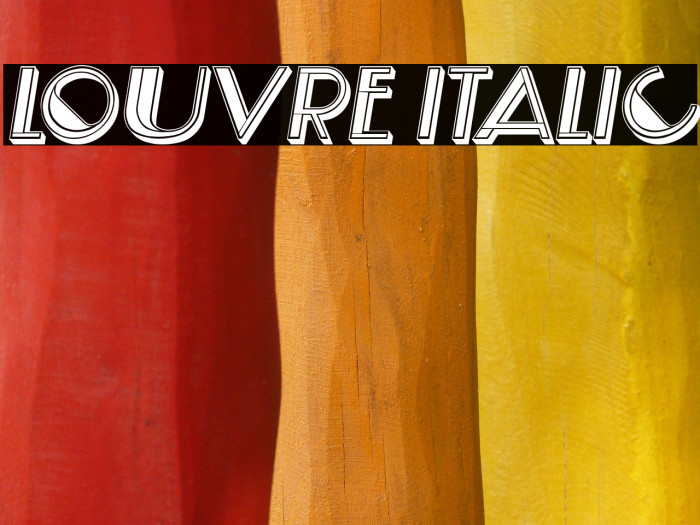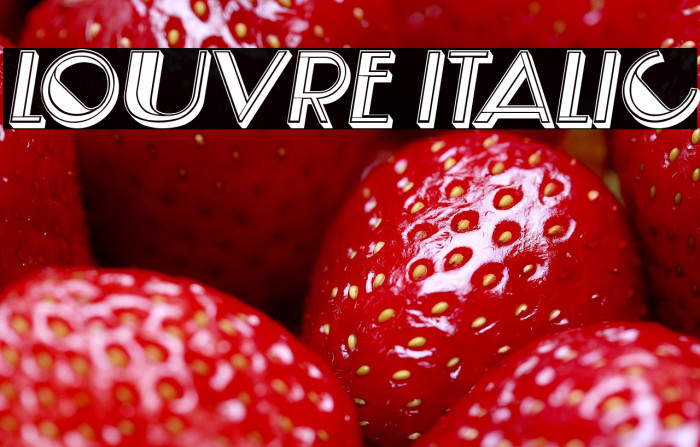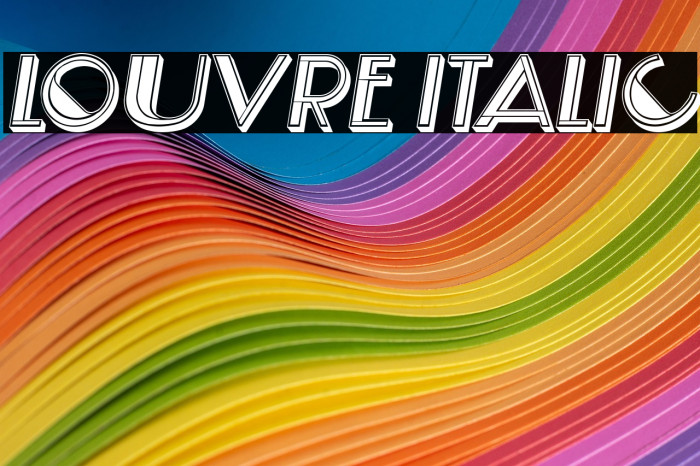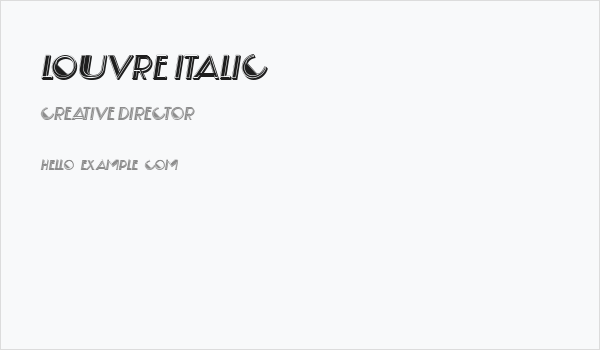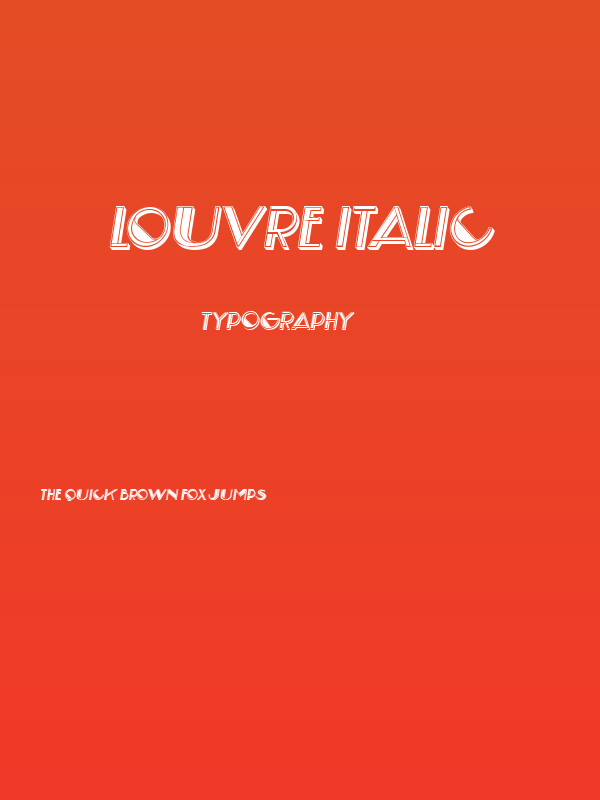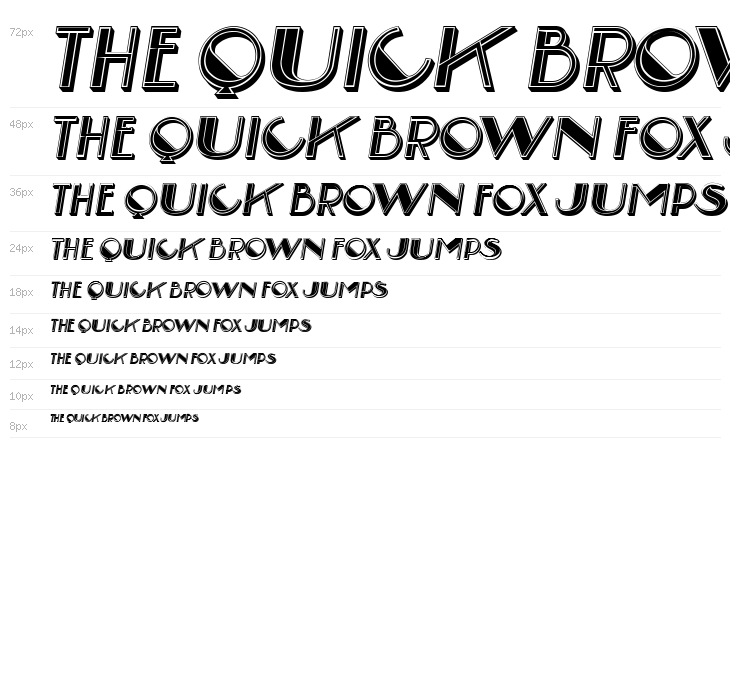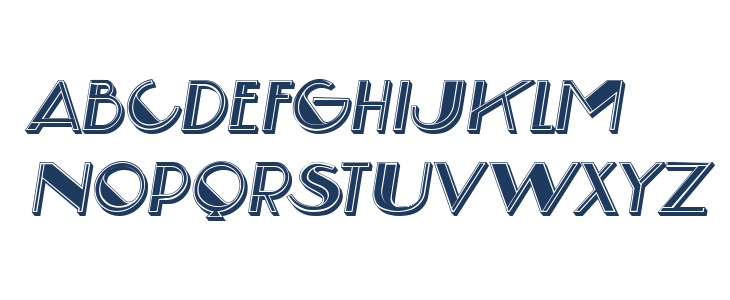
Louvre Italic Font
Louvre Italic Description
This font features a bold, italicized style with a distinct three-dimensional effect created by its shadowed outline. The characters are uppercase, with a geometric and angular design that gives them a modern and dynamic appearance. The strokes are consistent in thickness, contributing to a medium contrast. The font's unique style is accentuated by its italic slant, which adds a sense of motion and energy. The spacing between characters is normal, ensuring readability while maintaining its decorative appeal. This font is ideal for making a strong visual impact in various design contexts.
| Proposed Projects | Ideal for headlines, posters, branding, and any project requiring a bold, modern statement. |